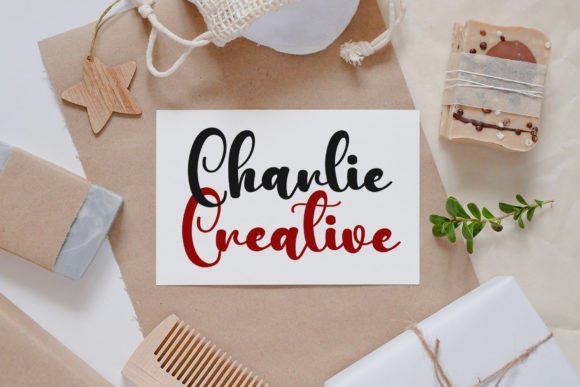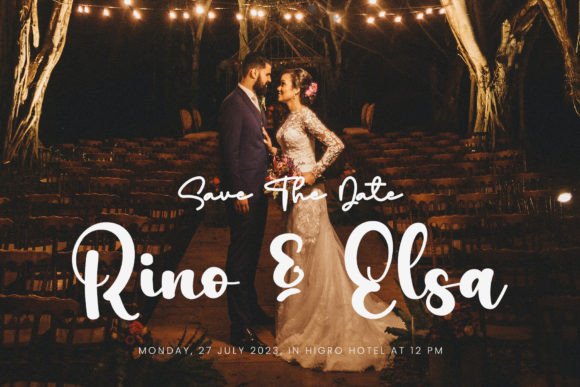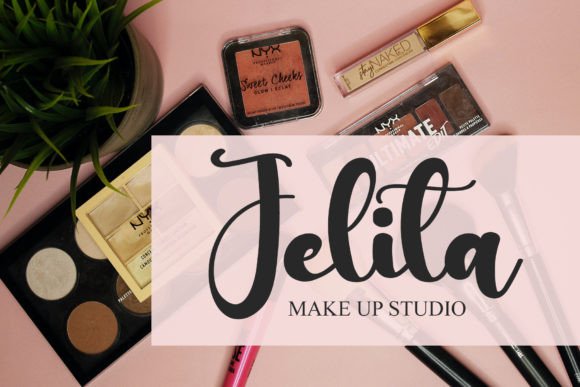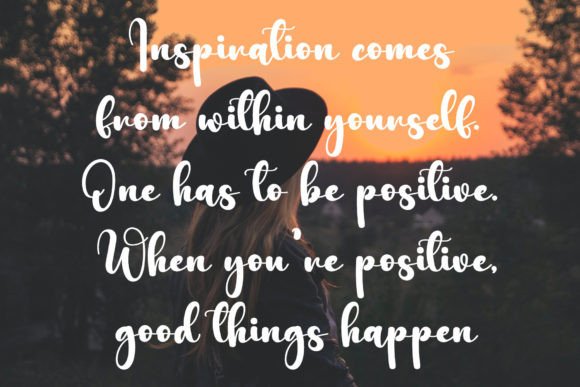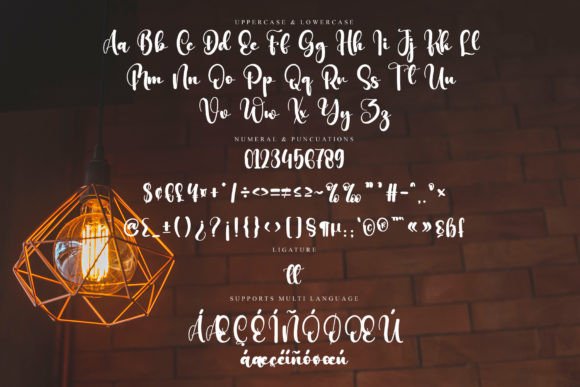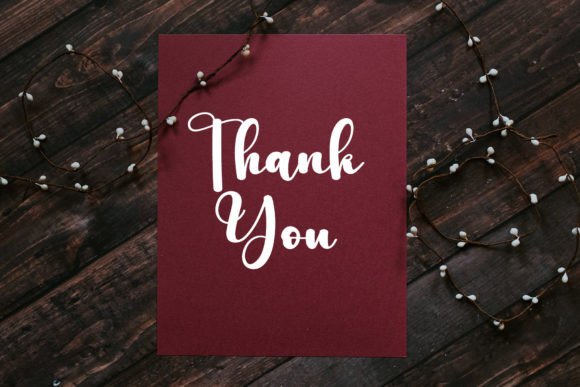
The Perfect Font for a Jolly Holiday Season
As I sat sipping hot cocoa, surrounded by twinkling lights and festive decorations, I couldn’t help but feel a surge of inspiration. It was time to start planning my holiday projects, and I knew just the font to bring some cheer to my designs. Enter the Cheerful Christmas Font, a delicate and elegant handwritten font that’s perfect for adding a touch of whimsy to your favorite projects.
This beautiful font is designed to evoke the magic of the holiday season, with its flowing script and timeless style. With its PUA encoding, you can easily access all of the glyphs and swashes, making it a valuable tool for designers looking to add a personal touch to their work. Whether you’re creating holiday cards, gift tags, or social media posts, the Cheerful Christmas Font is sure to bring a smile to your face and a dash of holiday cheer to your designs.
- Unique Characteristics: The font features a playful, hand-drawn design with bold lines and festive motifs, making it perfect for Christmas-themed designs and materials.
Designer Review: Cheerful Christmas Font
Overall, I think the Cheerful Christmas Font is a great addition to any holiday-themed project. Here are some things that really work well:
- ✨ The font’s playful, cursive feel is perfect for capturing the festive spirit.
- ✨ The bold weight options make it easy to use for headings and titles.
- ✨ The font is highly customizable, with a wide range of color and size options.
- ⚠️ The font may not be suitable for formal or professional projects, as it’s a bit too whimsical.
- ⚠️ The font’s cursive feel can make it difficult to read at very small sizes.
- ⚠️ Some users may find the font’s quirks and imperfections distracting.
Overall, I think the Cheerful Christmas Font is a fun and festive choice for holiday projects. While it may have some limitations, it’s a great option for designers who want to add a playful touch to their work.
The Cheerful Christmas Font is ideal for:
Christmas card designs
Holiday party invitations
Gift tags and wrapping paper
Seasonal social media graphics
To get the most out of the Cheerful Christmas Font, consider the following tips:
Use it in conjunction with bold, bright colors to create a festive atmosphere.
Experiment with different font sizes and styles to add visual